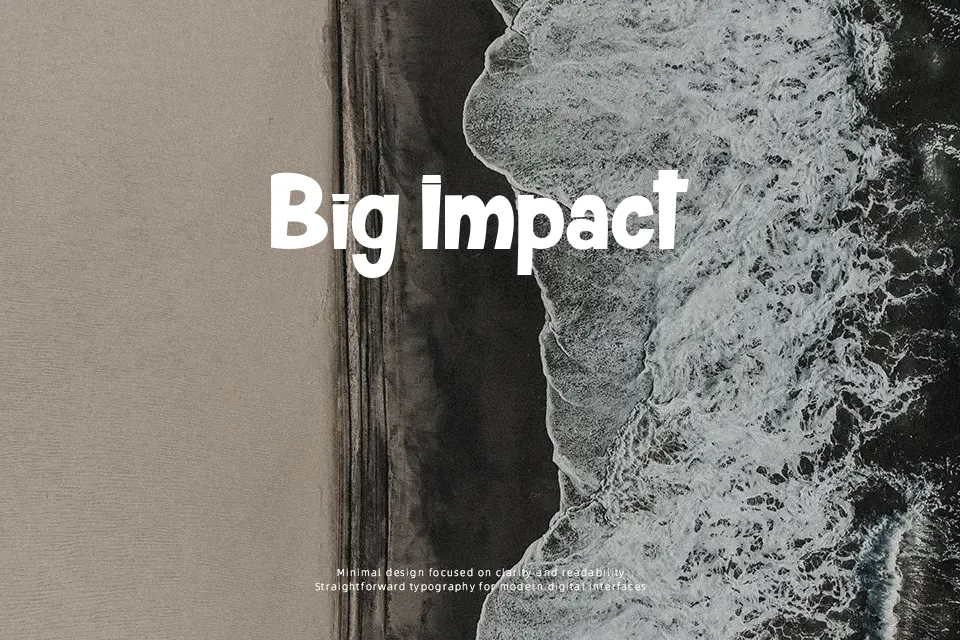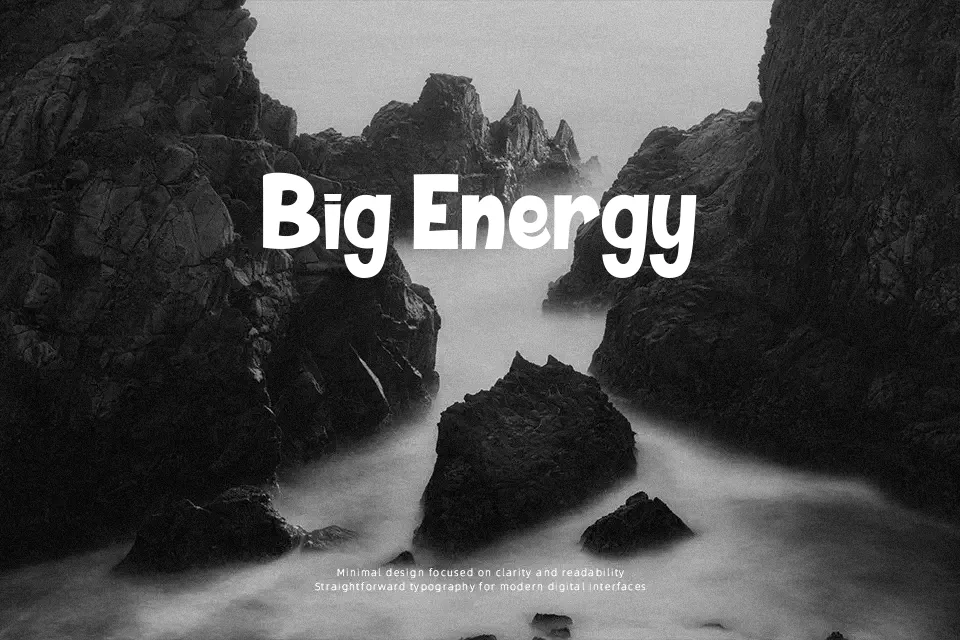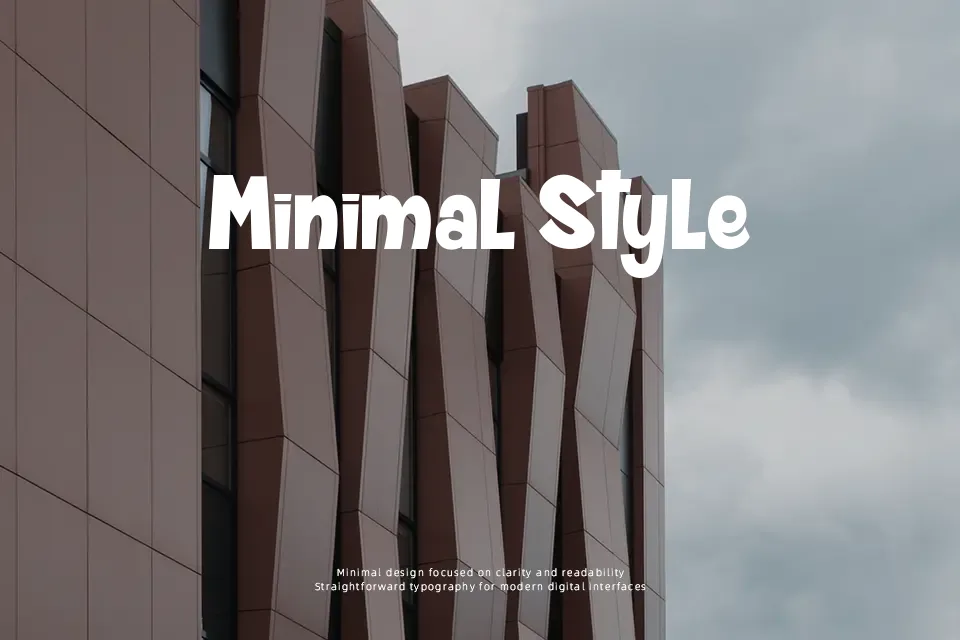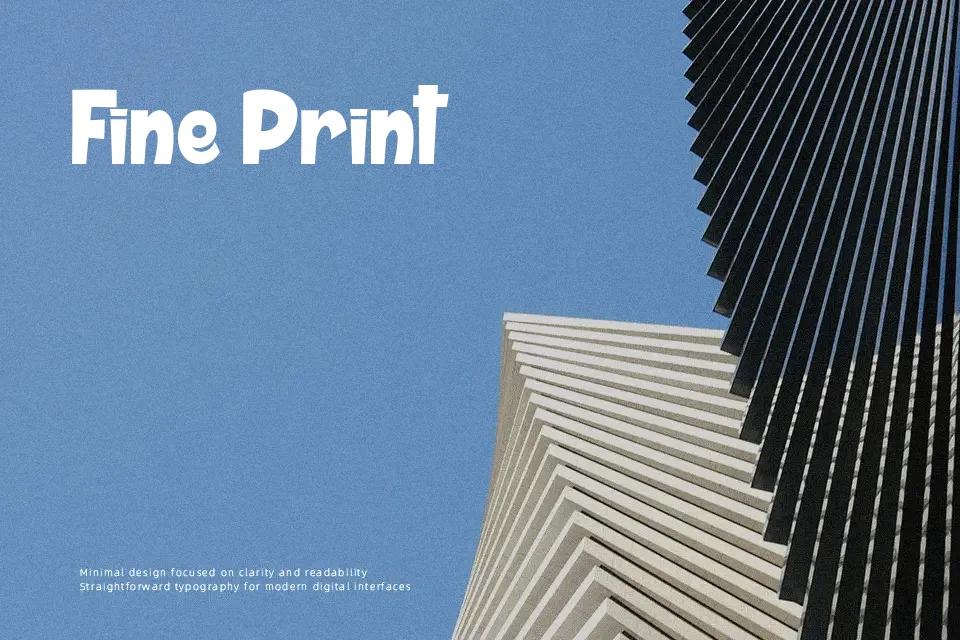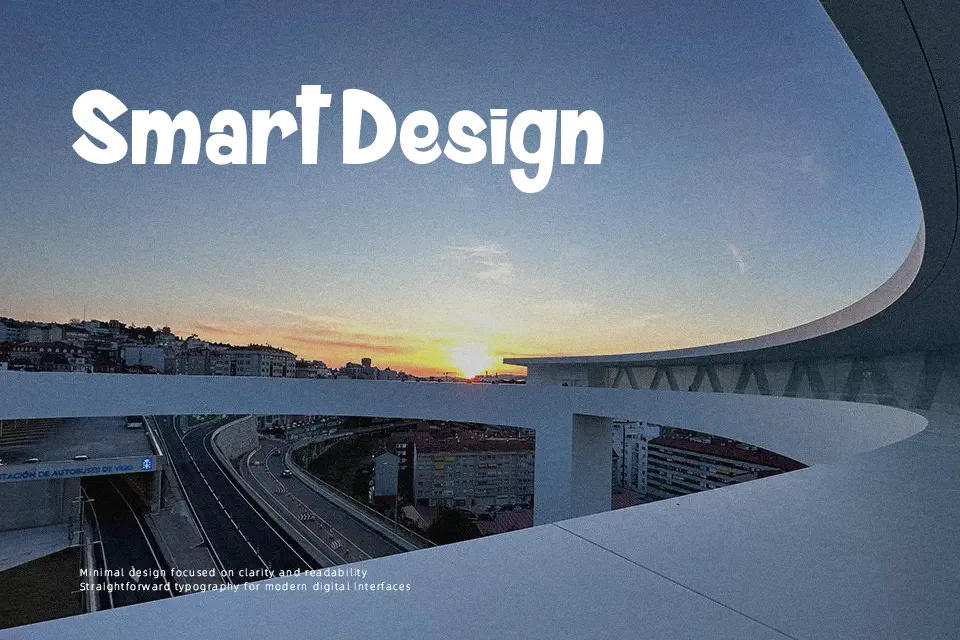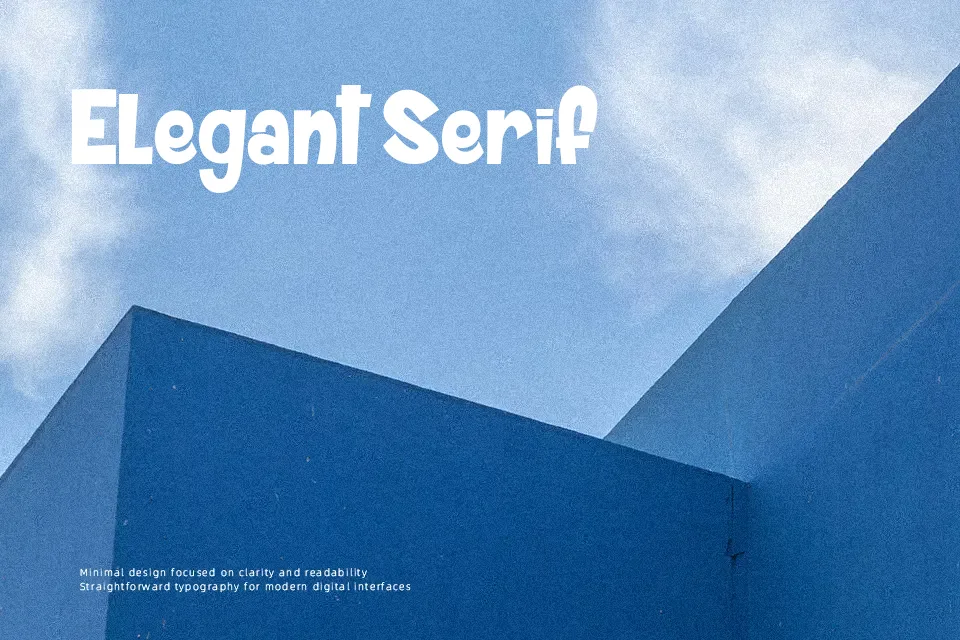
Skater Girls Rock Font
Skater Girls Rock Font is defined by thick, animated letterforms with low stroke contrast and soft, rounded terminals. The typeface features compact internal counters and slightly snug character spacing that gives titles a solid, unified presence. Uniform x-height proportions keep the alphabet visually consistent across uppercase and lowercase sets. At large scales, the design commands attention effortlessly on arcade flyers, youth sports banners, and playful logo headers. However, the heavy weight and tight apertures cause smaller captions to fill in and lose clarity quickly. For continuous editorial paragraphs or dense interface text, the dense glyph shapes reduce reading comfort considerably.
Best For: youth apparel graphics, arcade event flyers, comic book titles, playful sticker packaging
Not Ideal For: continuous body text, corporate annual reports, technical data tables, small interface labels